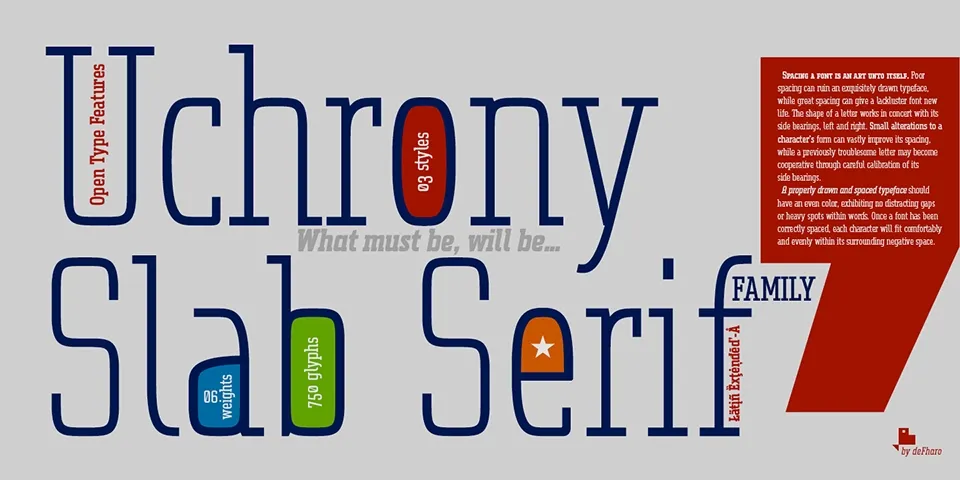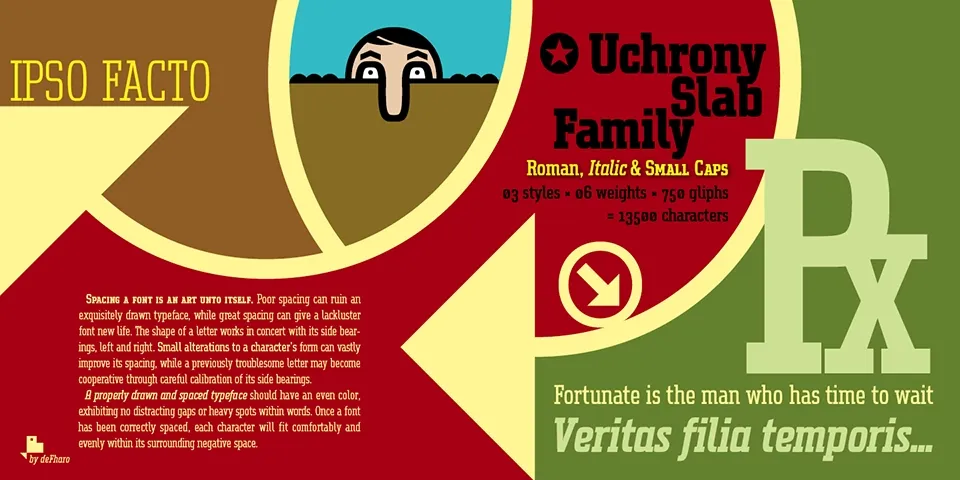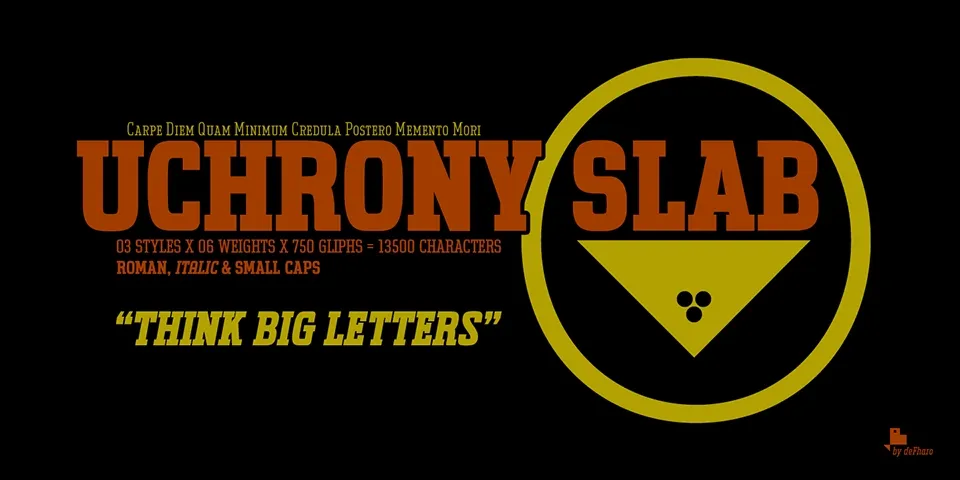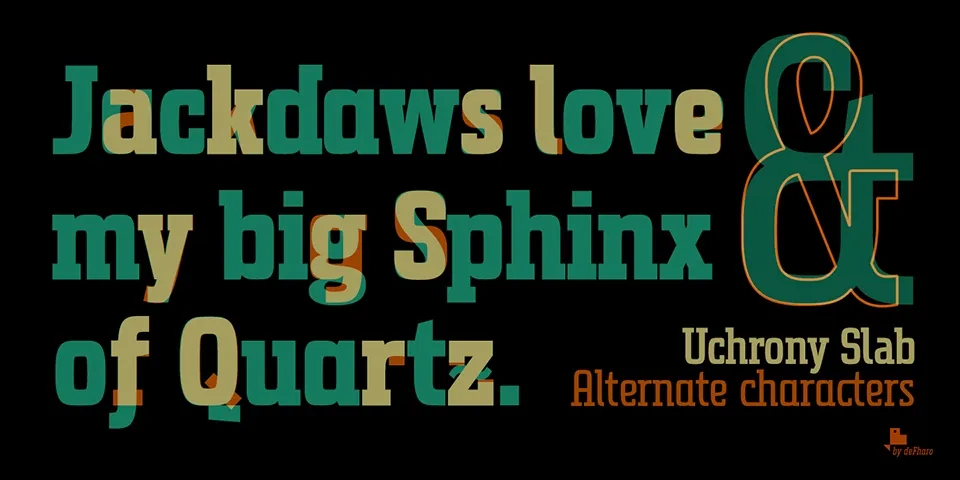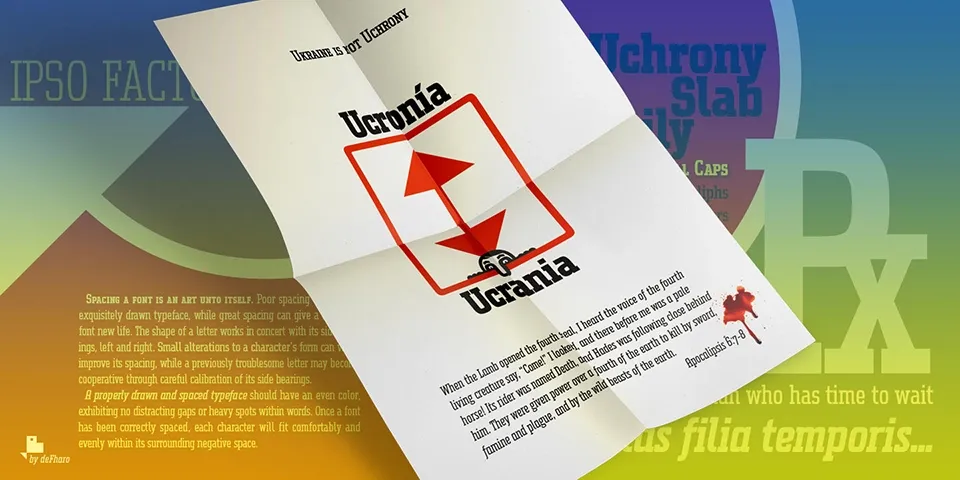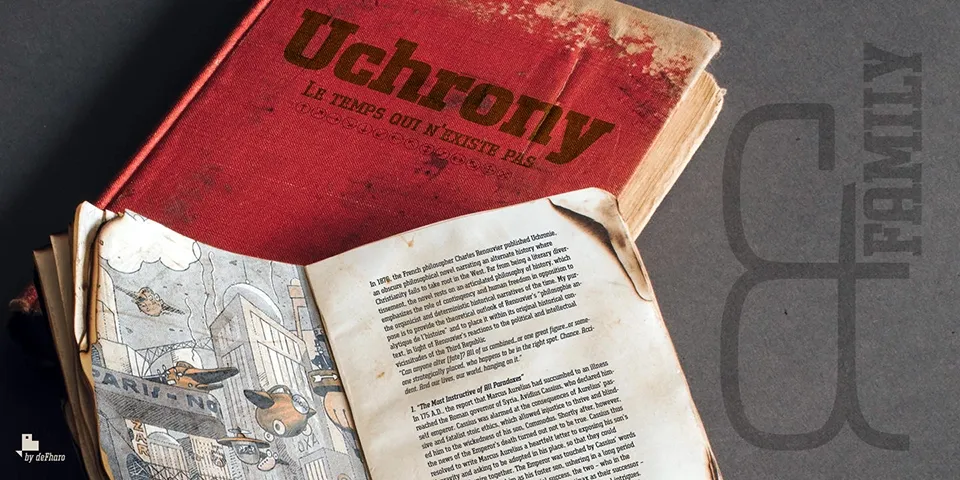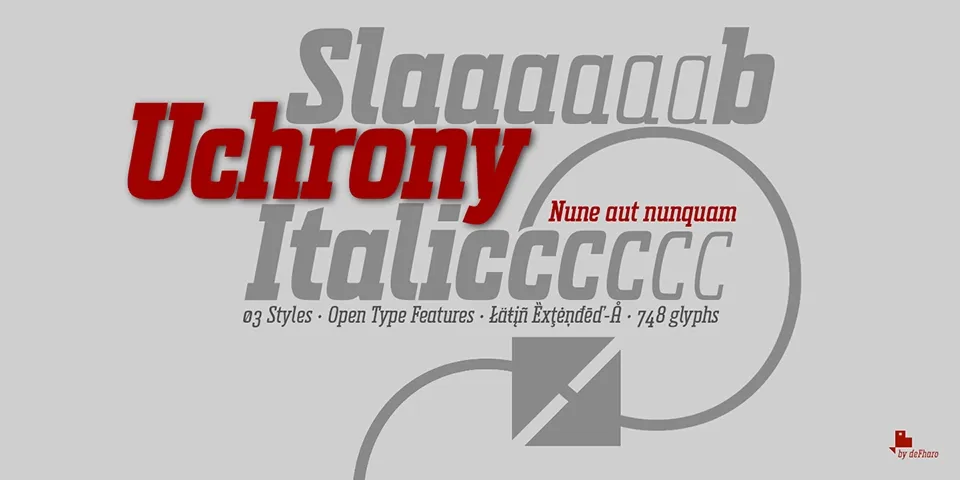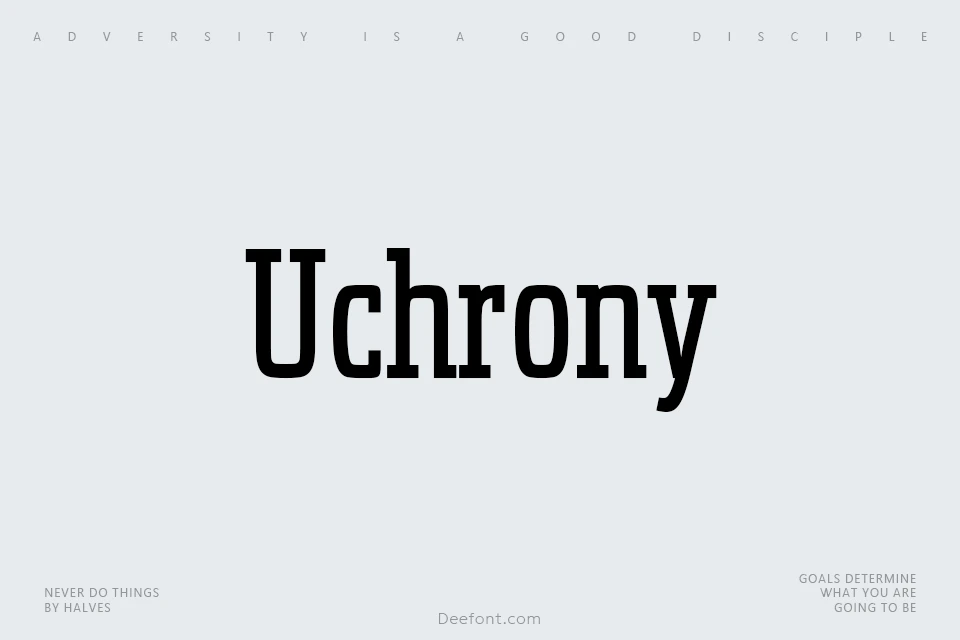
Uchrony Font Family
The Uchrony Font Family is a bold and versatile slab serif typeface designed to make a strong visual impact. With its clean lines, robust structure, and modern aesthetic, it is perfect for both professional and creative projects. Featuring six weights, three styles, and over 750 glyphs, this font family offers extensive flexibility for headlines, branding, editorial designs, and more. Its open-type features ensure seamless customization, while its carefully spaced letterforms provide optimal readability. Uchrony Font Family strikes the perfect balance between classic slab serif charm and contemporary design, making it an excellent choice for creating timeless and striking visuals.